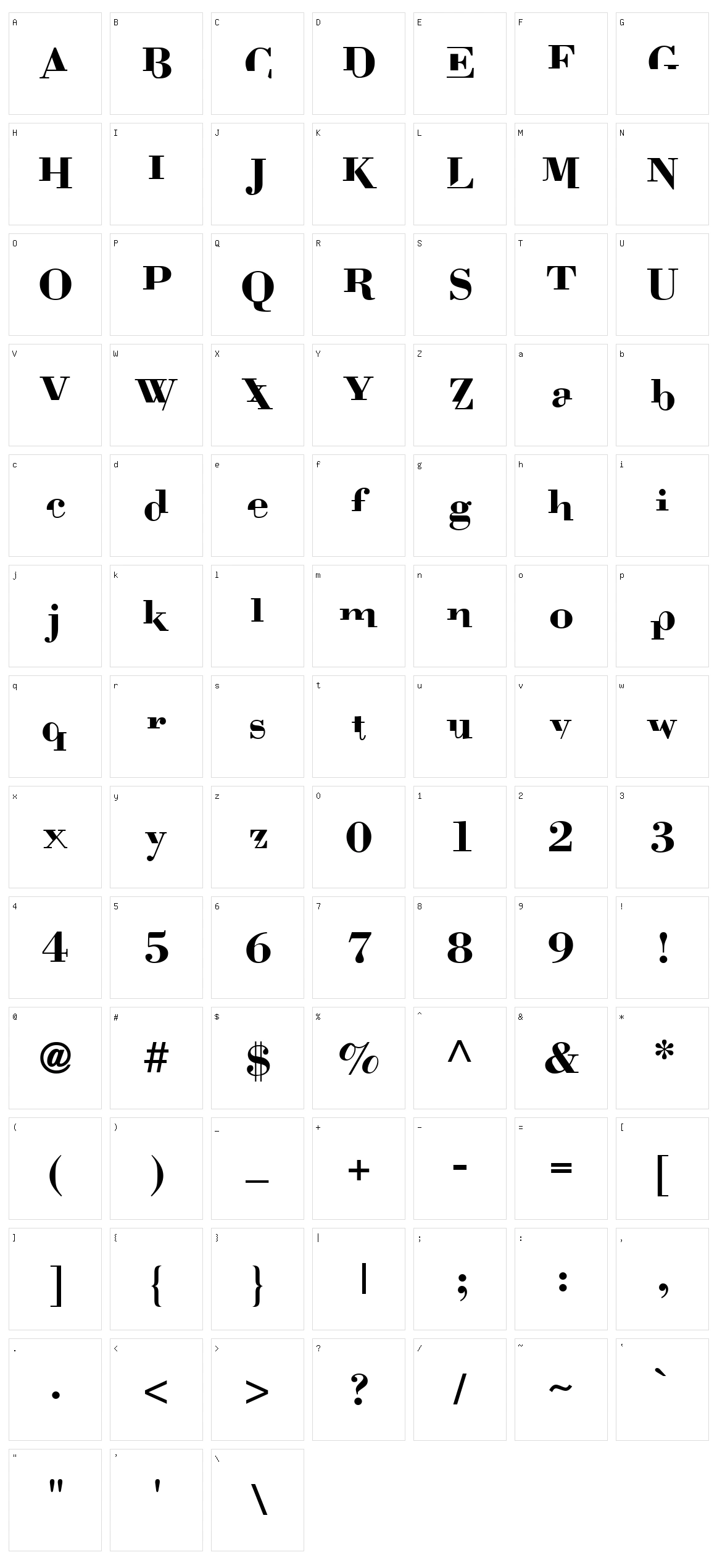
The free font Bodoni Mutant is carefully designed by Tim Brayshaw, showcasing a thoughtful balance of creativity and usability and falls under the Distorted font style. When you download the ZIP file, it contains only 23.63 KB of font files, making it lightweight and quick to download. Please review the license details below to understand permitted usage and distribution rights. If license information is not available, we recommend using this font for personal projects only or contacting the author directly for commercial usage permissions.